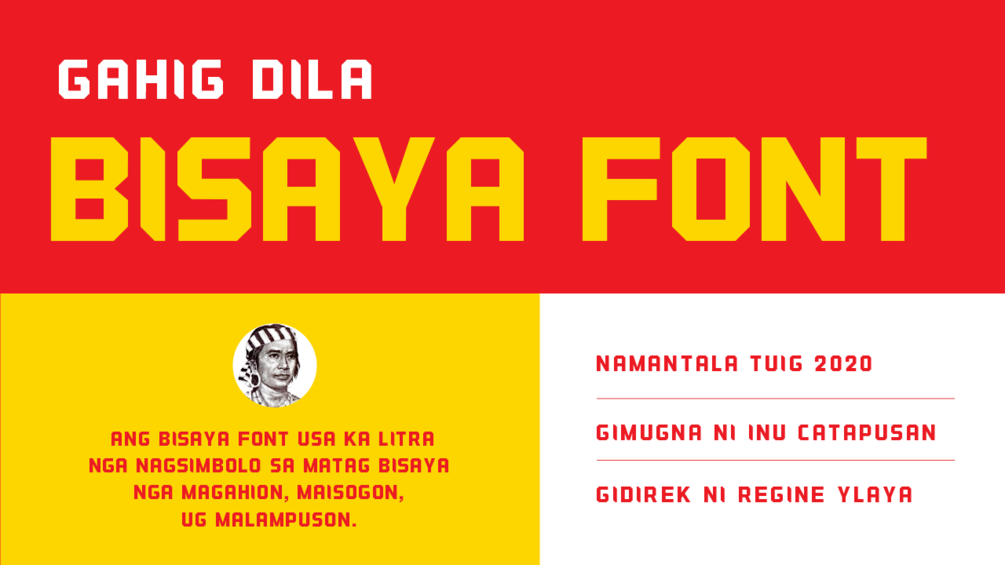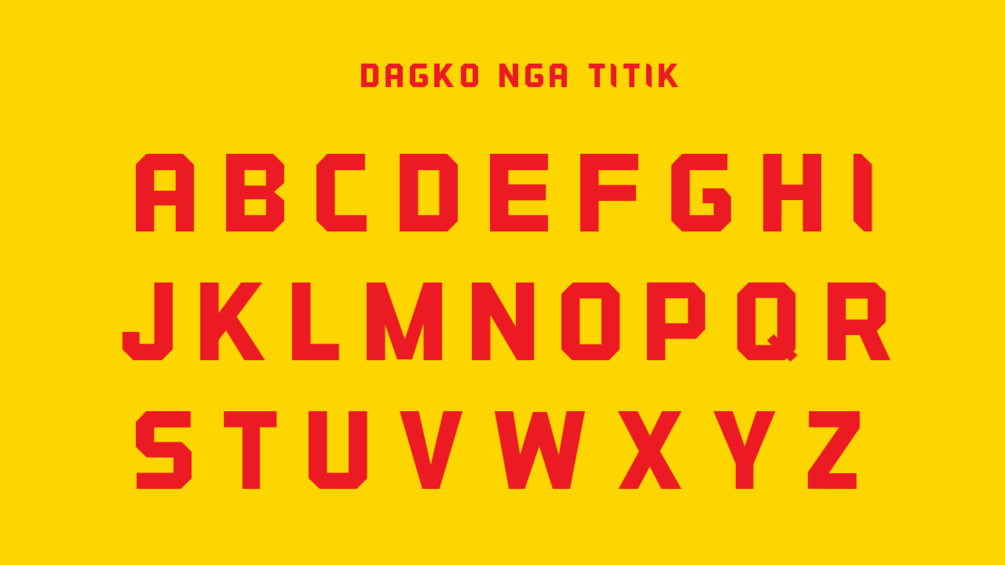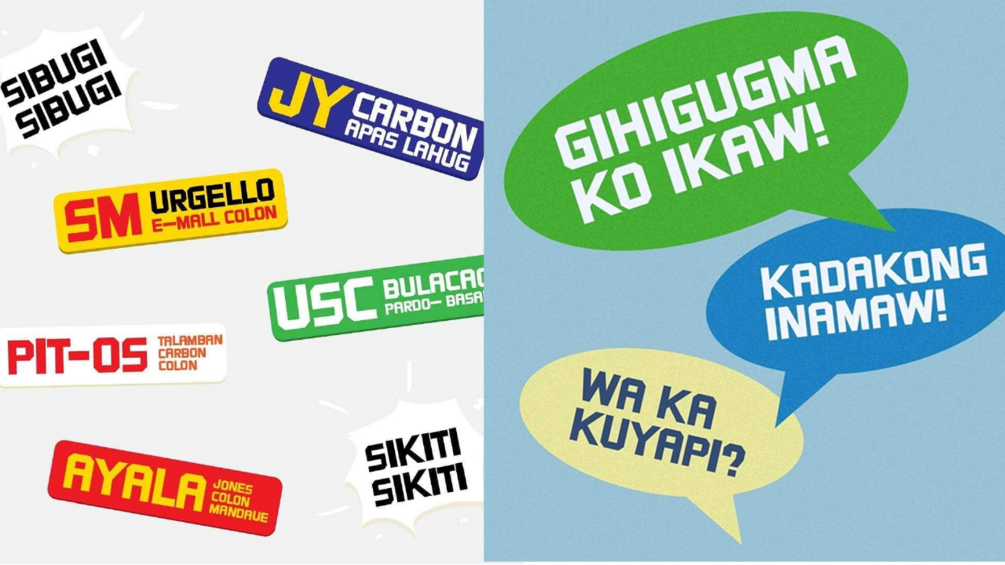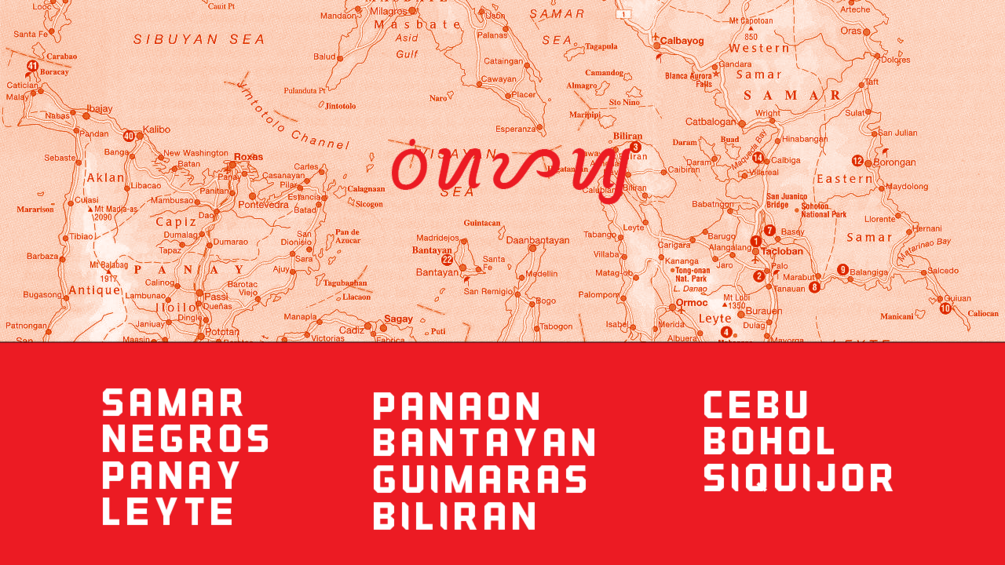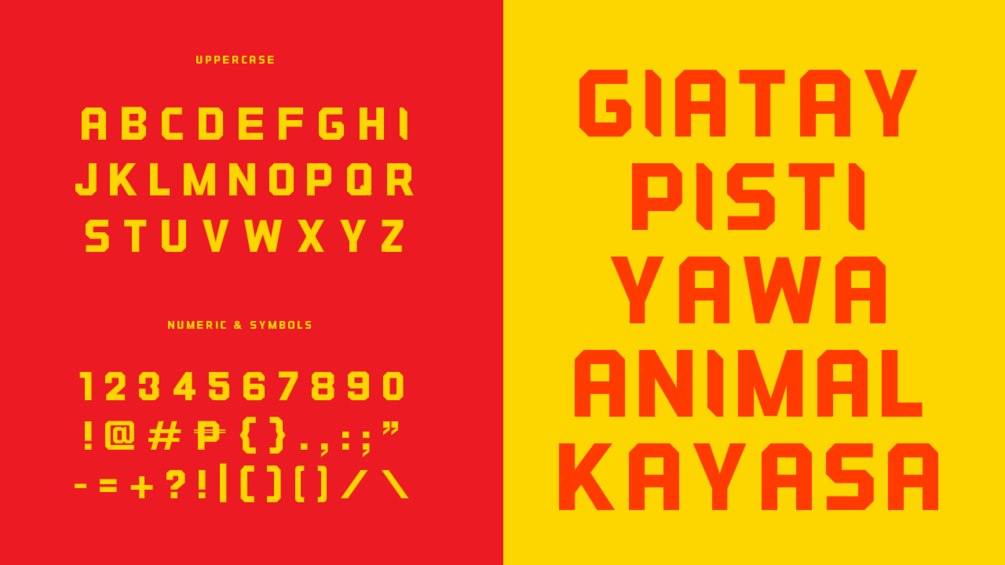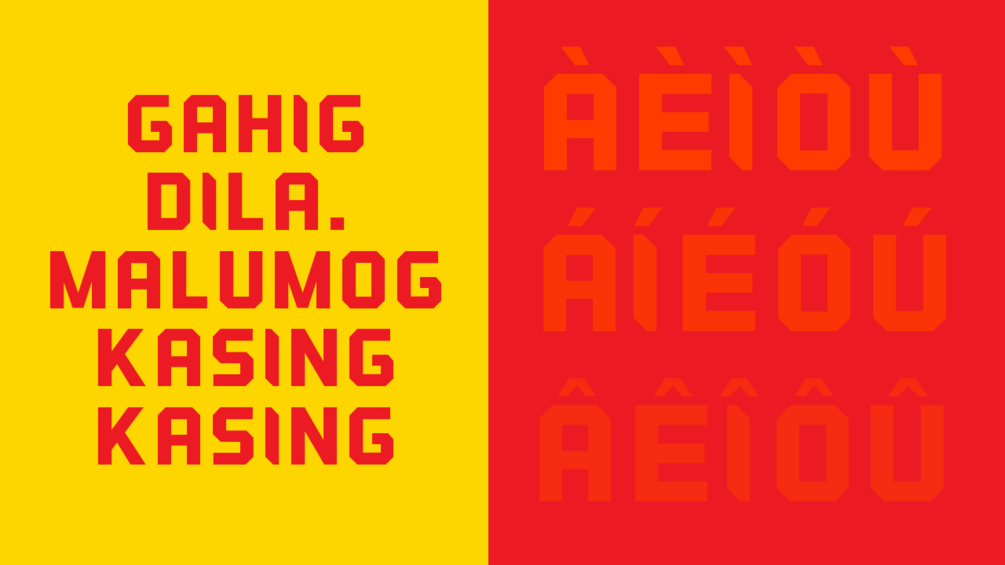
Bisaya Font
Gahi'g Dila font is inspired by Bisaya's characteristics such as GARBO: the dignity and pride; LUMADNON: the love for the community ; ISOG: courageous to succeed.